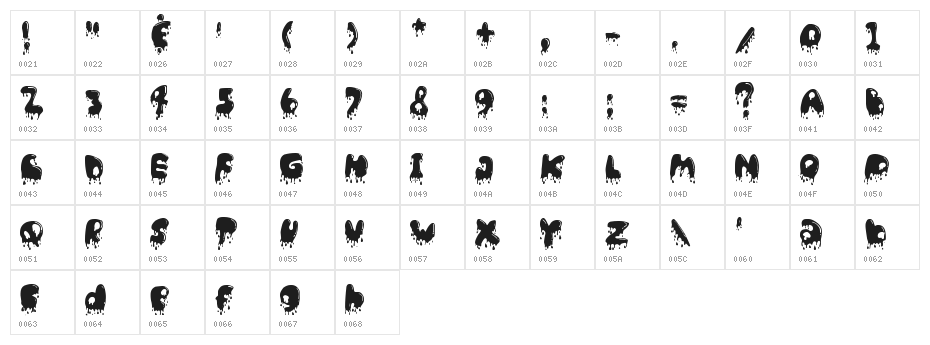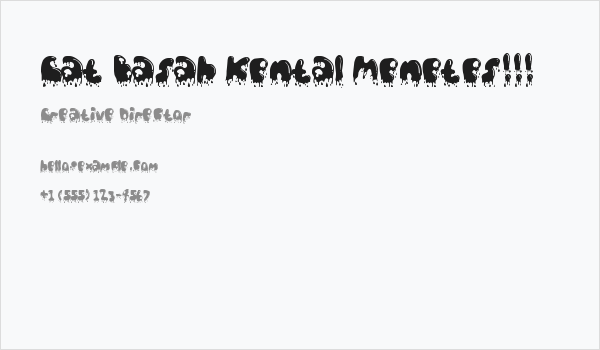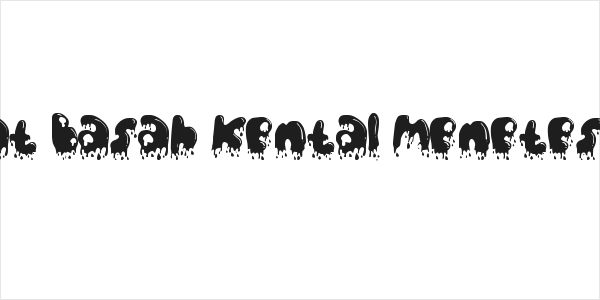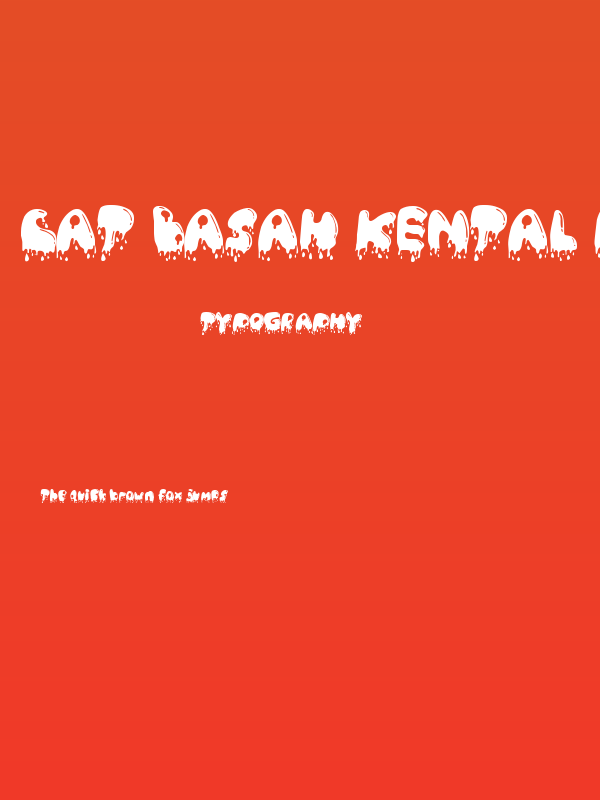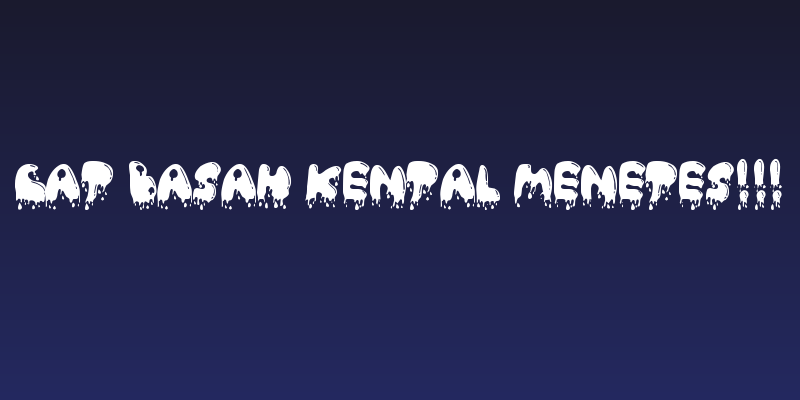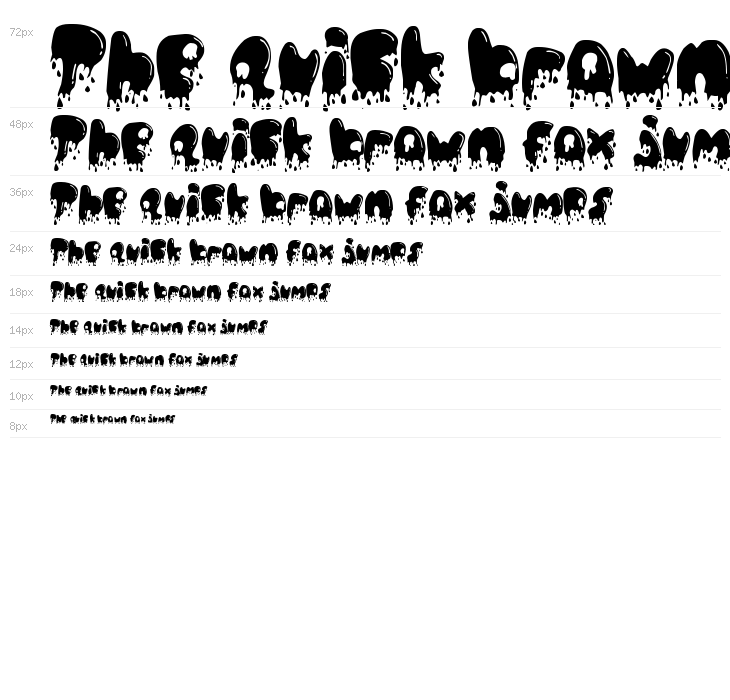
Cat Basah Kental Menetes!!! Font
Cat Basah Kental Menetes!!! Description
This font features a bold, dripping effect that gives the impression of wet paint or melting liquid. Each character appears as if it's oozing, creating a dynamic and eye-catching appearance. The style is highly decorative, with a playful yet slightly eerie vibe, making it perfect for themes that require a sense of fluidity or transformation. The uppercase and lowercase letters maintain a consistent dripping motif, while the numbers and special characters follow suit, ensuring a cohesive look across all glyphs. The font's unique style makes it stand out, ideal for projects that need a bold statement.
| Use Case | Headlines, Posters, Logos |
| Proposed Projects | Ideal for Halloween-themed designs, horror movie posters, edgy branding, or any project requiring a bold, eye-catching typeface. |